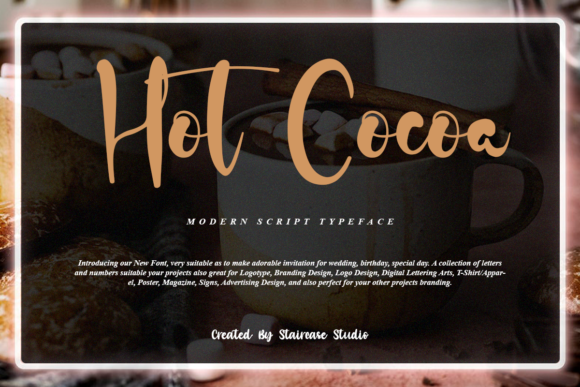
Prepare to be whisked away to a winter wonderland with Hot Cocoa Font, a delightful script font that embodies the warmth and joy of the holiday season. Its enchanting curves and playful strokes evoke the magic of a snowy morning, while its delicate details add a touch of elegance to any design.
Immerse yourself in the charm of this handcrafted font, meticulously designed to capture the essence of a perfect Christmas card. Each letter dances across the page like snowflakes, creating a visual symphony that will leave you spellbound. Whether you're crafting heartfelt messages, designing festive invitations, or adding a personal touch to your holiday greetings, Hot Cocoa Font is the perfect companion for your creative journey.
With its enchanting personality, Hot Cocoa Font transforms ordinary words into heartfelt expressions. Its warm and inviting style adds a touch of coziness to your designs, making them irresistible to your audience. Let your creativity flow as you explore the endless possibilities of this captivating font, creating designs that resonate with the spirit of the season.
Beyond its festive charm, Hot Cocoa Font possesses a remarkable versatility that makes it suitable for a wide range of projects. Its elegant curves and flowing strokes lend a touch of sophistication to branding materials, logos, and website designs. Unleash your imagination and discover the countless ways in which Hot Cocoa Font can elevate your designs and leave a lasting impression.
Don't miss this opportunity to add a touch of magic to your creative projects. Embrace the beauty of Hot Cocoa Font and let its enchanting allure captivate your audience.